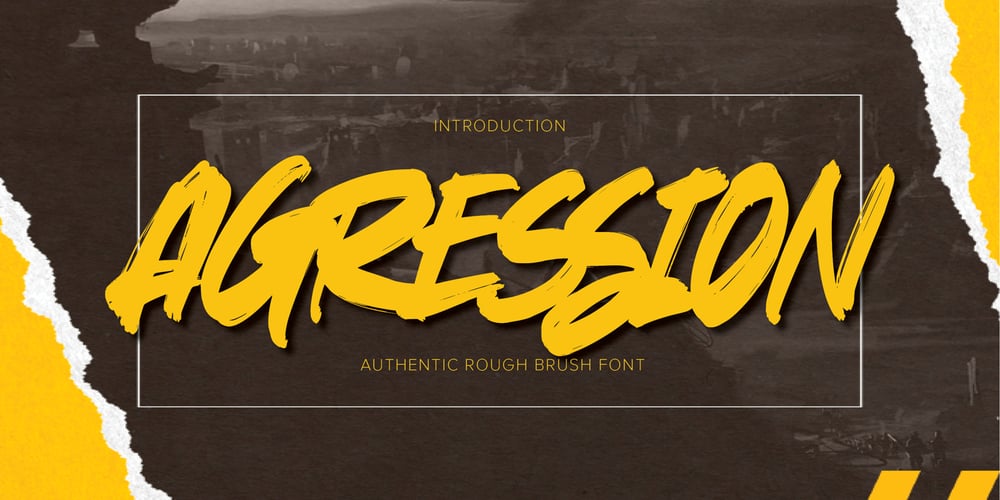
Agression Font Family was designed by Abdul Malik Wisnu and published by Gassstype. Agression contains 1 styles and family package options. Agression-Handwritten Brush font with a Rough style and dramatic movement. This font is great for your next creative project such as logos, printed quotes, invitations, cards, product packaging, headers, Logotype, Letterhead, Poster, Label, and etc.